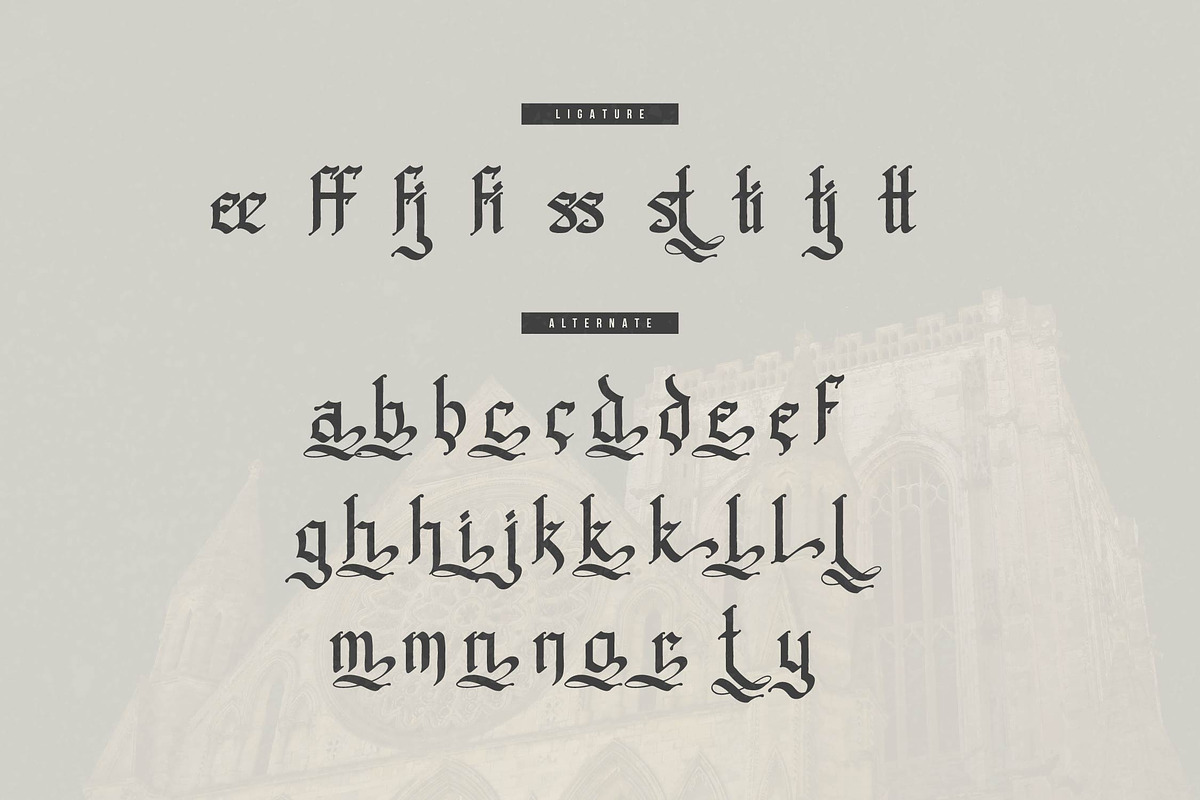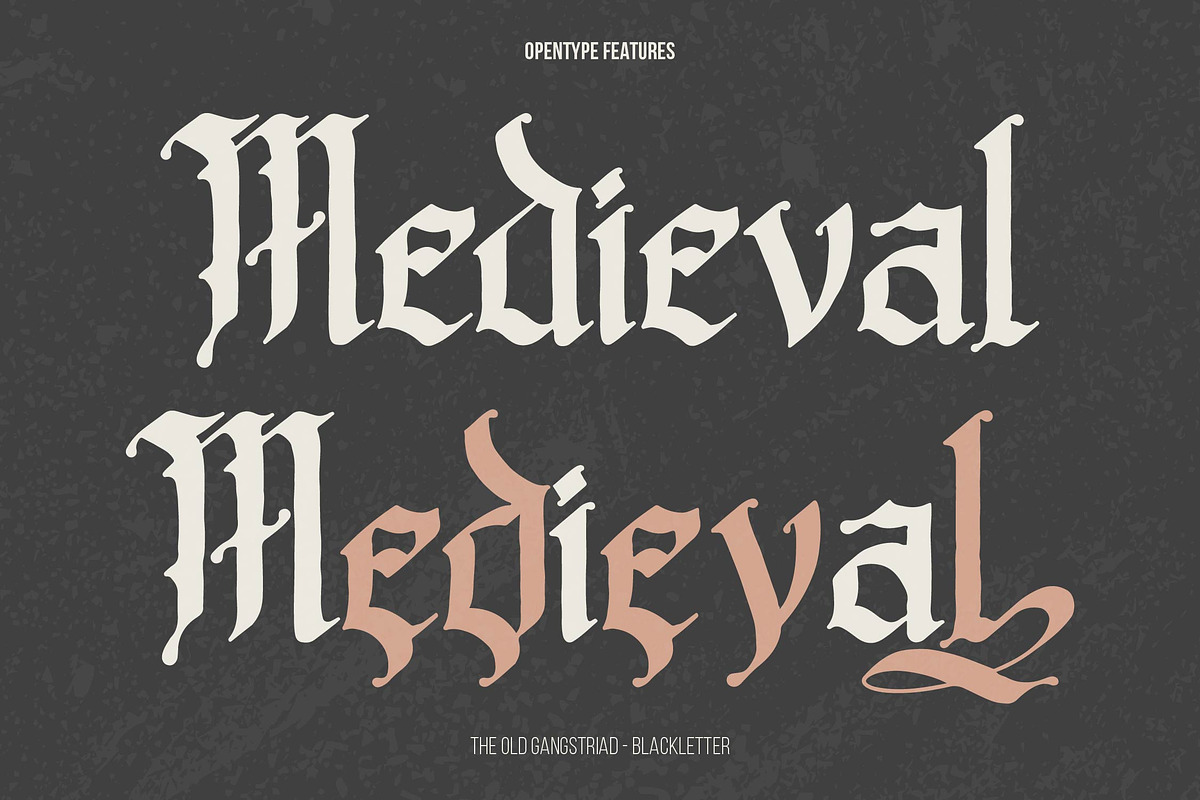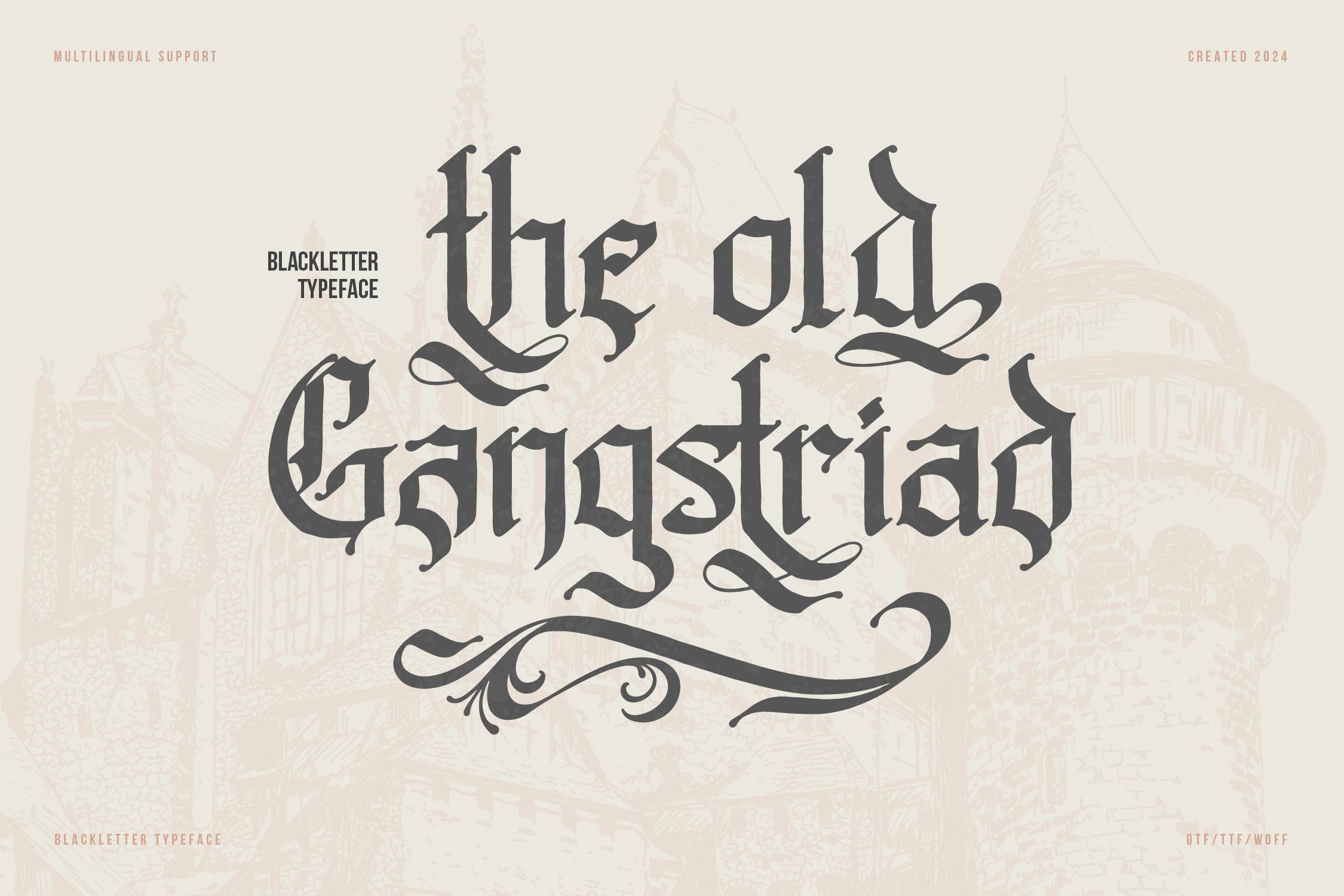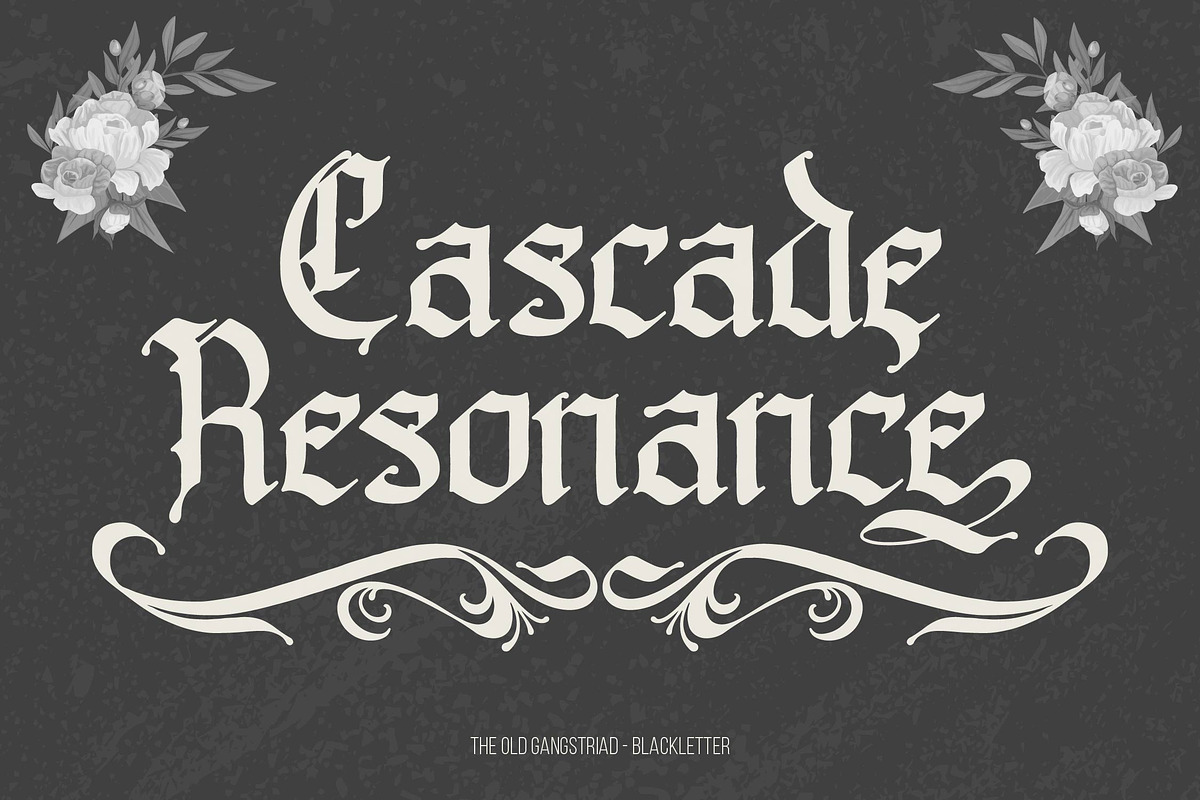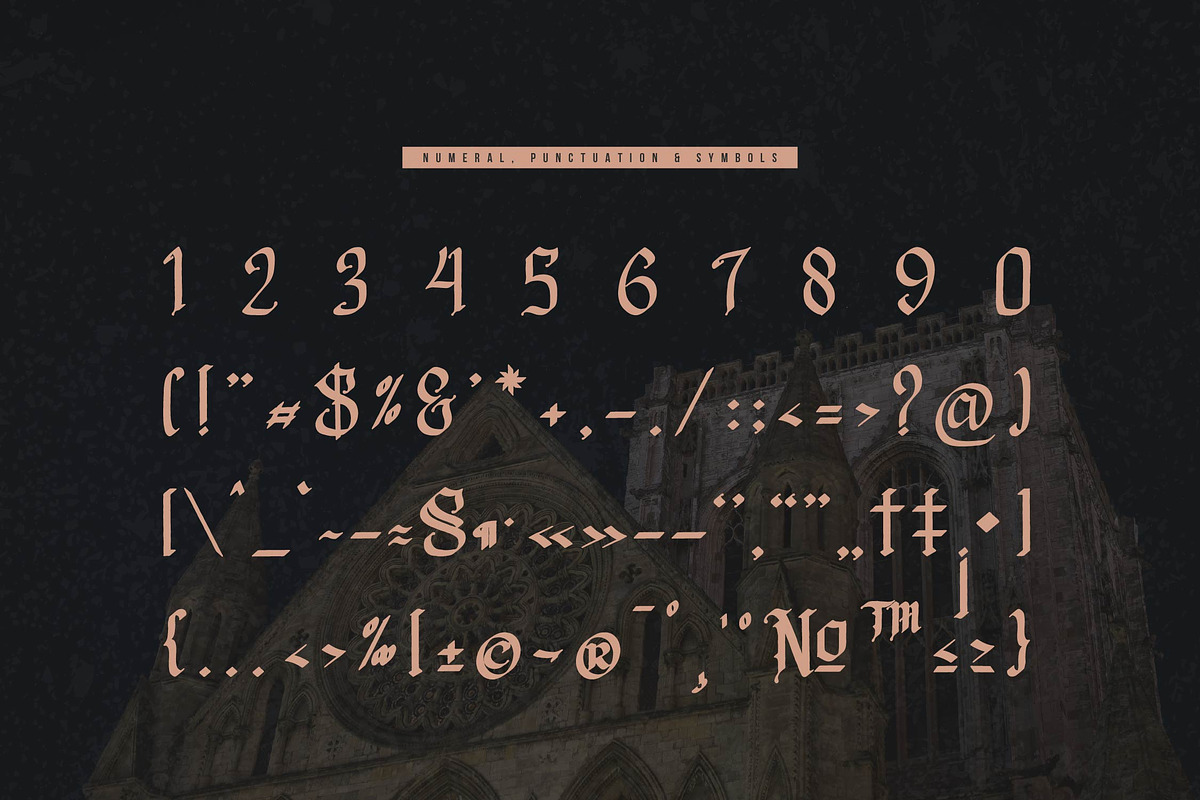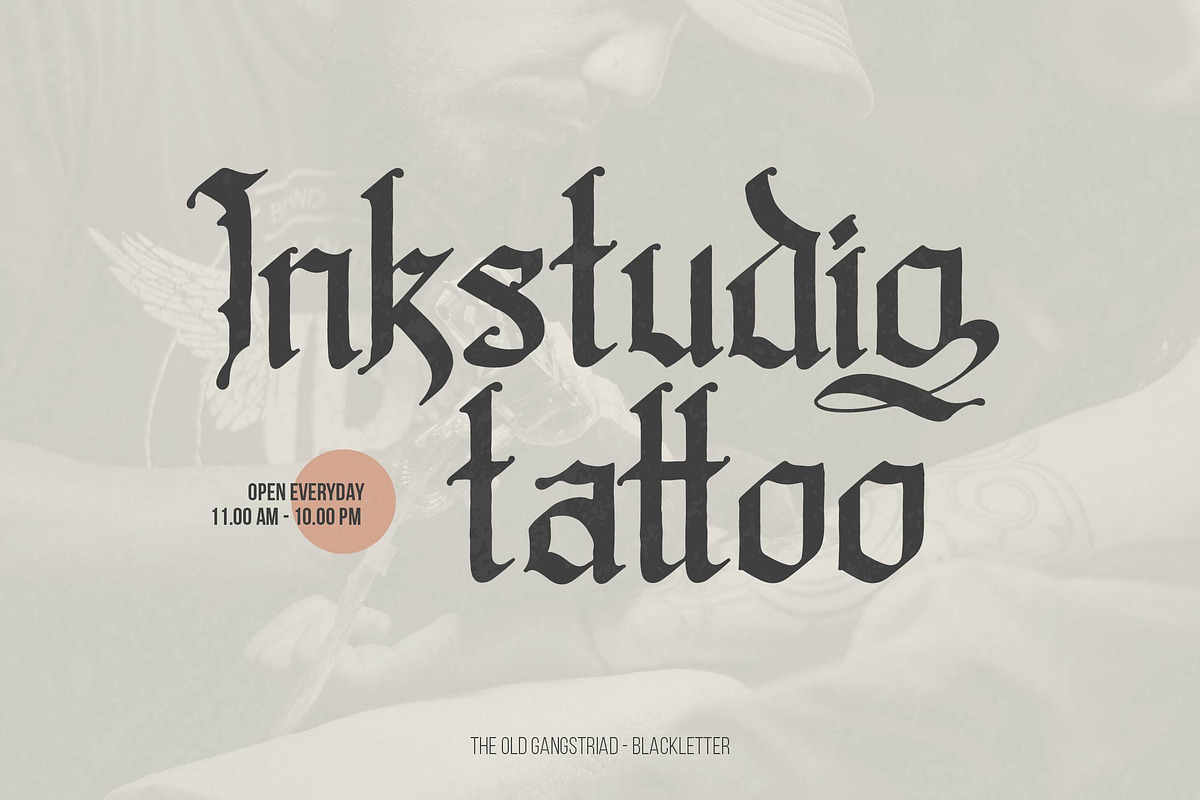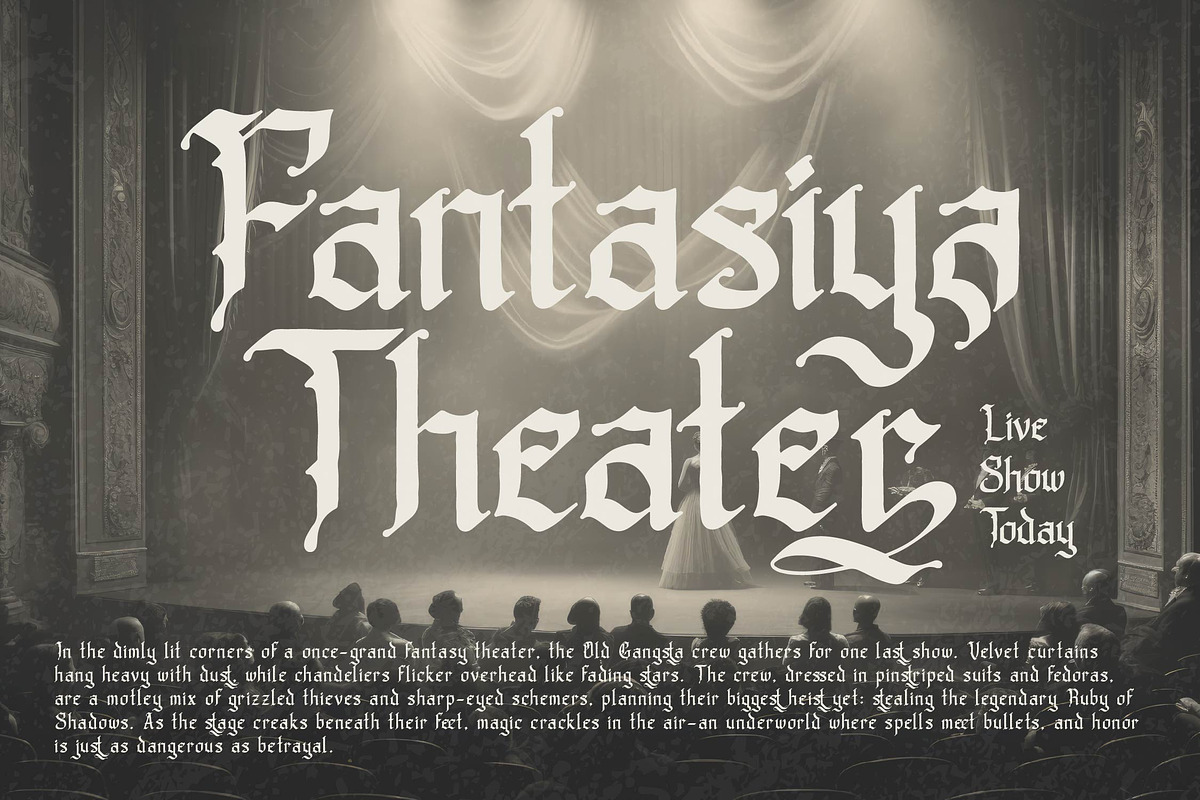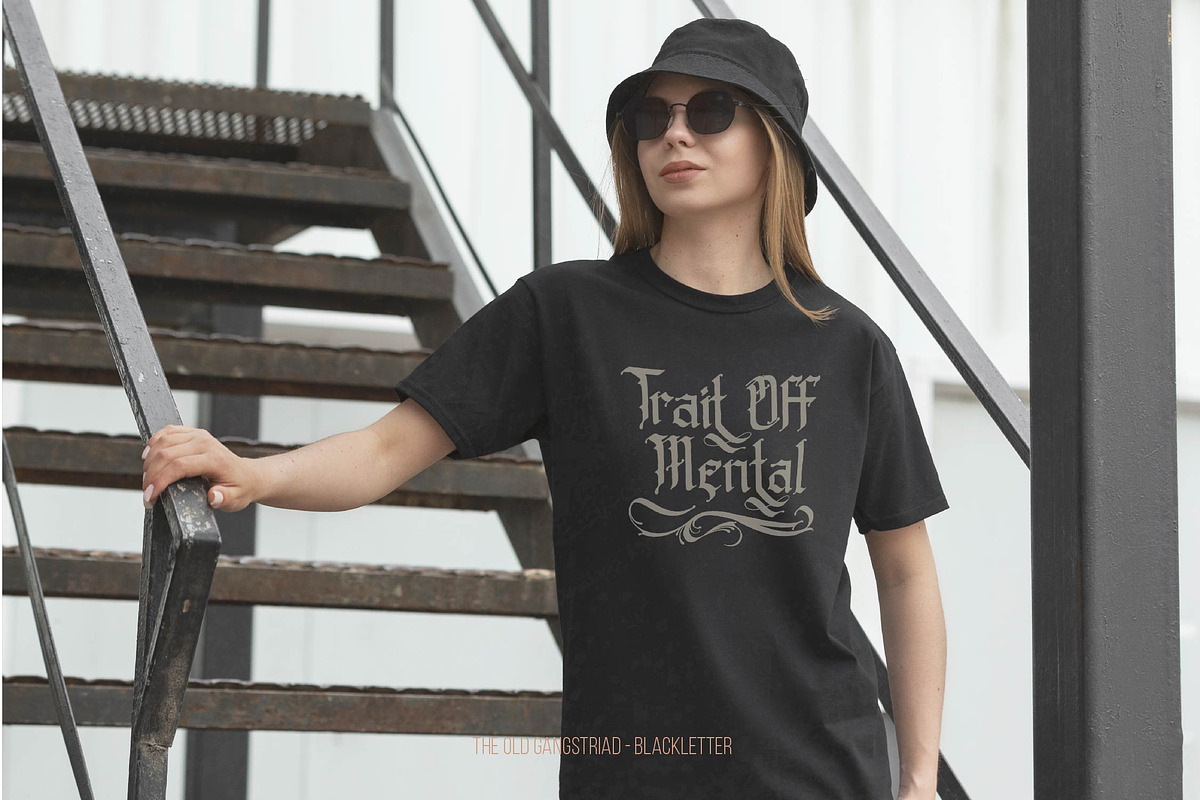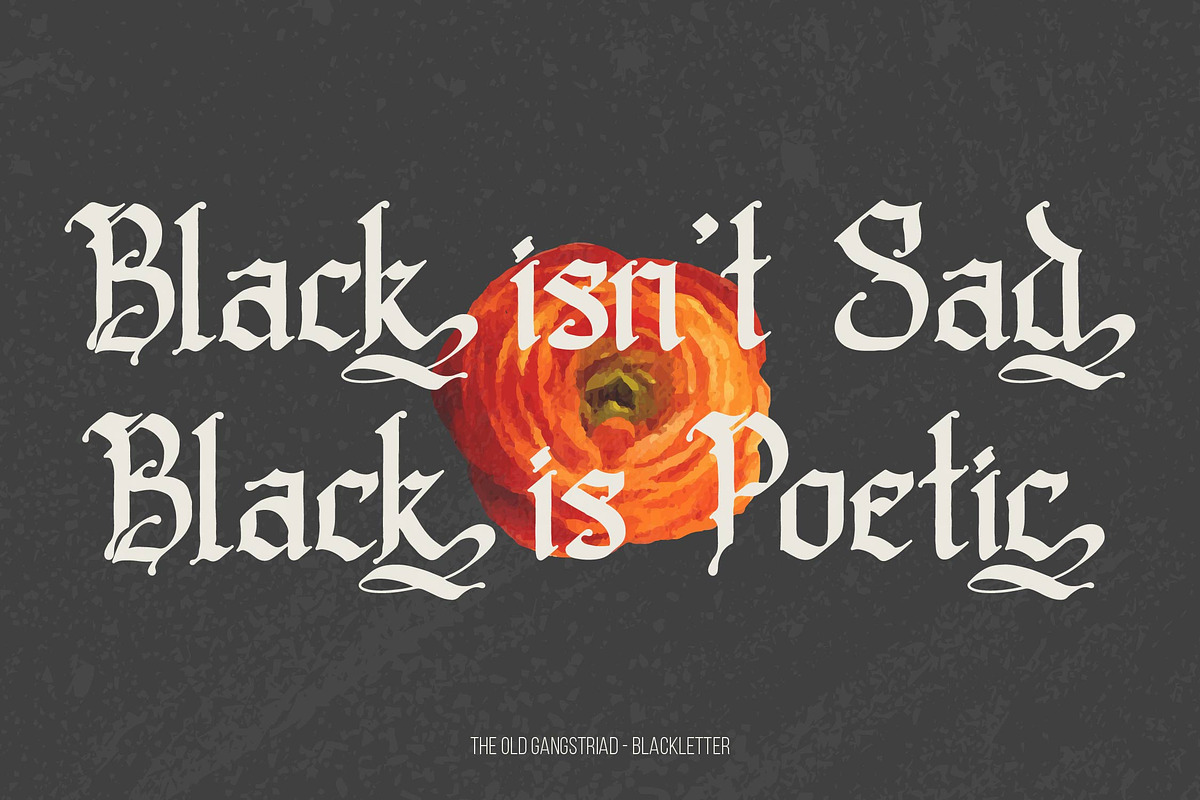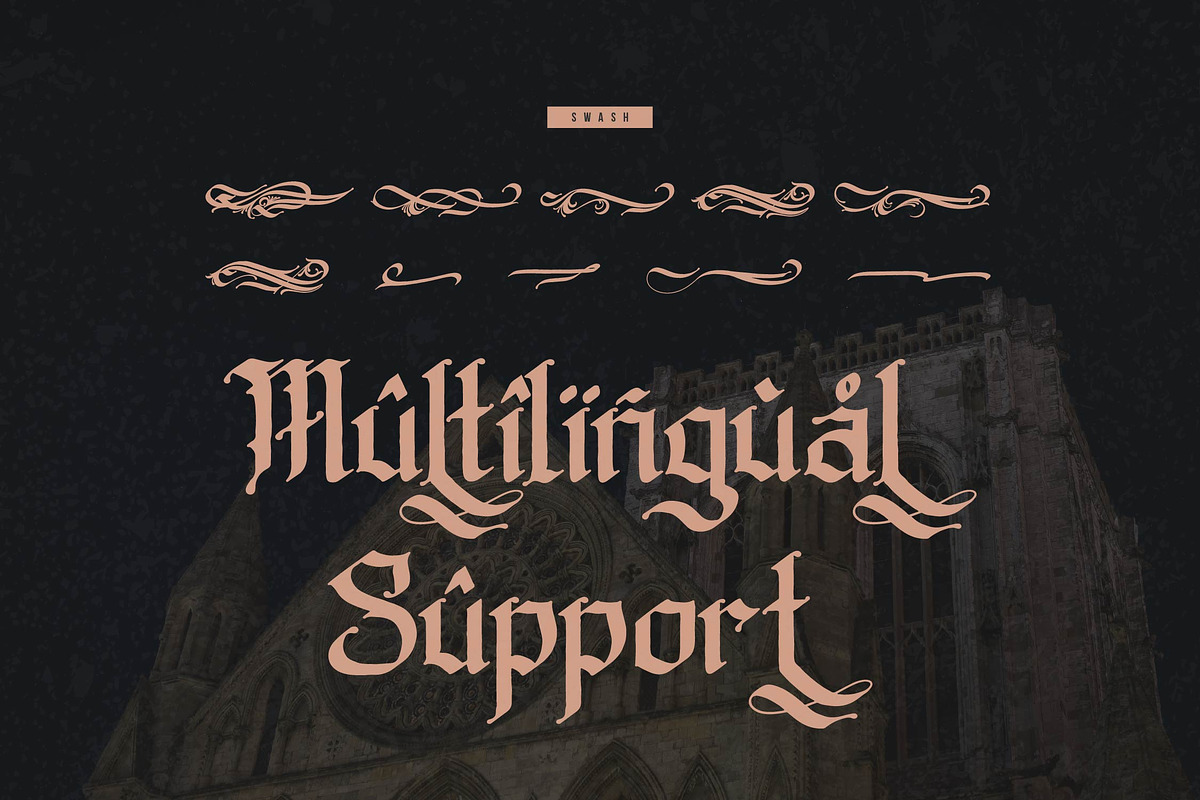
Old Gangstriad Blackletter Typeface
Old Gangstriad Blackletter Typeface, from Denustudios, suitable for any projects such as: logos, branding projects, homeware designs, product packaging, mugs, quotes, posters, shopping bags, t-shirts, book covers, name card, invitation cards, greeting cards, label, photography, watermark, special events, and all your other lovely projects that need a Blackletter Typeface taste.